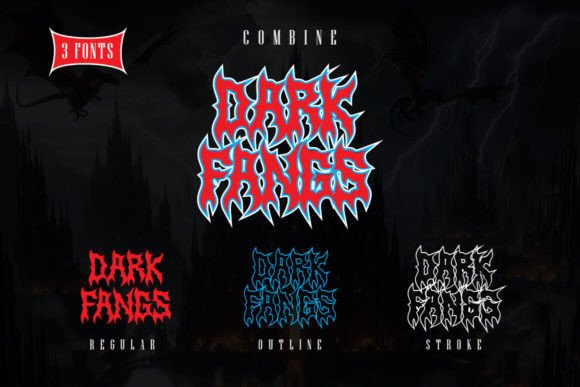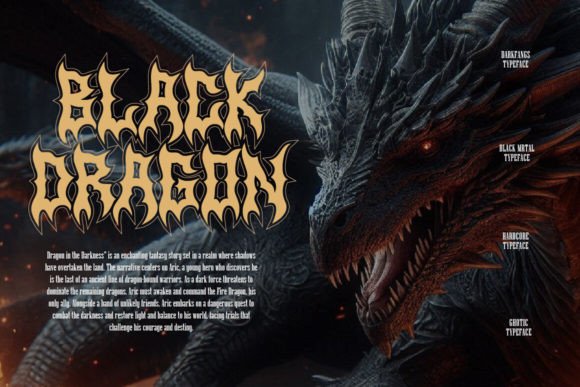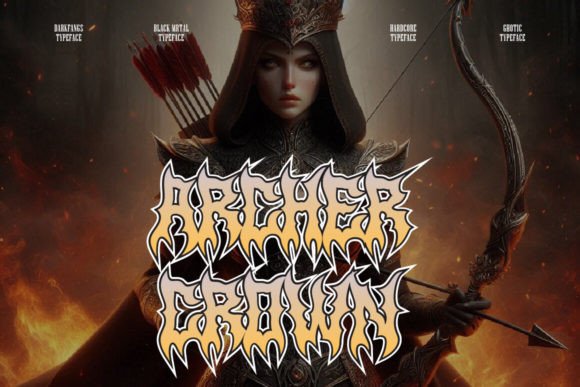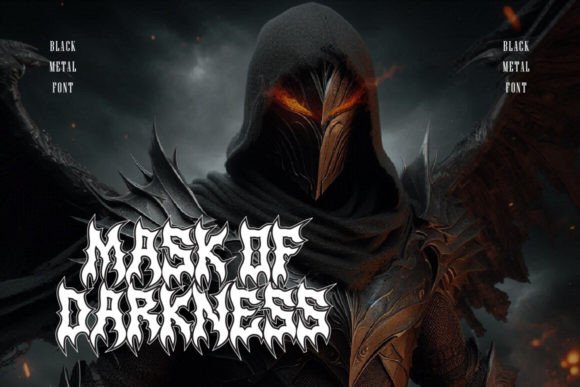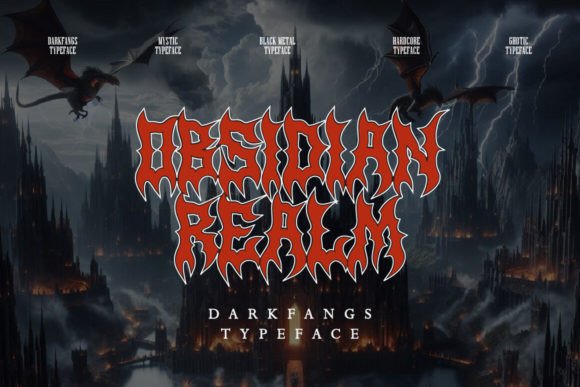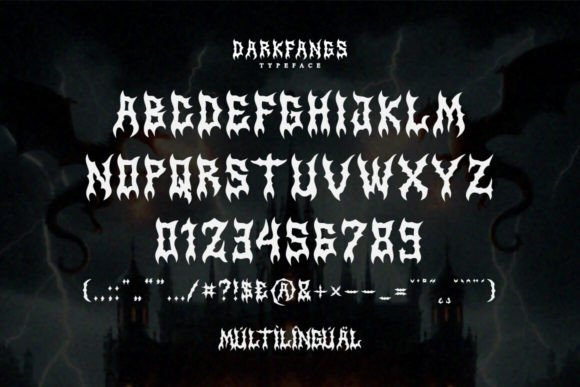
Unleash the Darkness: Exploring the Darkfangs Font
In the realm of typography, few fonts capture the essence of darkness and intensity as effectively as Darkfangs. This gothic typeface is specifically designed to embody the raw energy of black metal, making it an ideal choice for designers and crafters seeking to add a bold, edgy flair to their projects. In this article, we’ll delve into the world of Darkfangs, exploring its design, features, and applications.
The Birth of Darkfangs
Darkfangs is more than just a font – it’s an experience. Inspired by the dark, aggressive aesthetic of black metal, this typeface is crafted to evoke the same emotions as the music: intensity, rebellion, and a hint of mystery. With its sharp, modern design, Darkfangs is the perfect tool for creating striking logos, band merchandise, and horror film posters that demand attention.
Design and Features
Darkfangs boasts a range of features that make it an exceptional choice for designers and crafters. Some of its key characteristics include:
- Sharp, modern design: Darkfangs’ sleek lines and pointed edges create a sense of aggression and energy, perfect for capturing the intensity of black metal.
- Gothic-inspired: With its roots in traditional gothic typography, Darkfangs brings a sense of history and authenticity to your designs.
- High-contrast: The font’s high-contrast design creates a dramatic, eye-catching effect, ideal for logos, posters, and other visual materials.
- Extensive character set: Darkfangs includes a wide range of characters, ensuring that you have the flexibility to create complex, detailed designs.
Applications and Use Cases
Darkfangs is an incredibly versatile font, suitable for a variety of applications and projects. Some of the most popular use cases include:
- Band merchandise: Create striking logos, posters, and album covers for black metal bands and other heavy music genres.
- Horror film posters: Add a touch of darkness and intensity to your horror film posters, creating a lasting impression on audiences.
- Logos and branding: Use Darkfangs to create bold, memorable logos for businesses and organizations seeking to make a statement.
- Graphic design: Experiment with Darkfangs in a range of graphic design projects, from brochures and flyers to social media graphics and more.
Tips and Tricks for Working with Darkfangs
To get the most out of Darkfangs, consider the following tips and tricks:
- Experiment with sizes: Darkfangs is a font that can make a statement at any size, but it’s particularly effective when used large and bold.
- Play with colors: Darkfangs looks stunning in bold, bright colors, but don’t be afraid to experiment with darker, moodier tones for a more ominous effect.
- Combine with other fonts: Pair Darkfangs with other fonts to create interesting contrasts and add depth to your designs.
Darkfangs is a font that embodies the dark, intense spirit of black metal, making it an ideal choice for designers and crafters seeking to add a bold, edgy flair to their projects. With its sharp, modern design and extensive character set, Darkfangs is the perfect tool for creating striking logos, band merchandise, horror film posters, and more. Whether you’re a seasoned designer or just starting out, Darkfangs is sure to inspire and unleash your creativity.